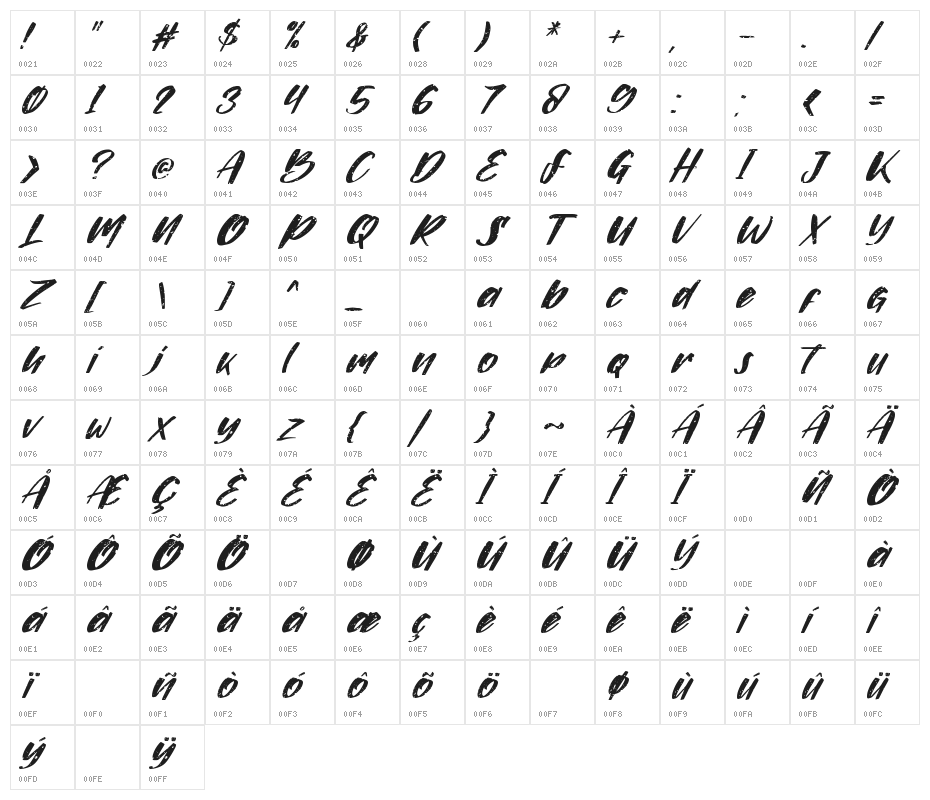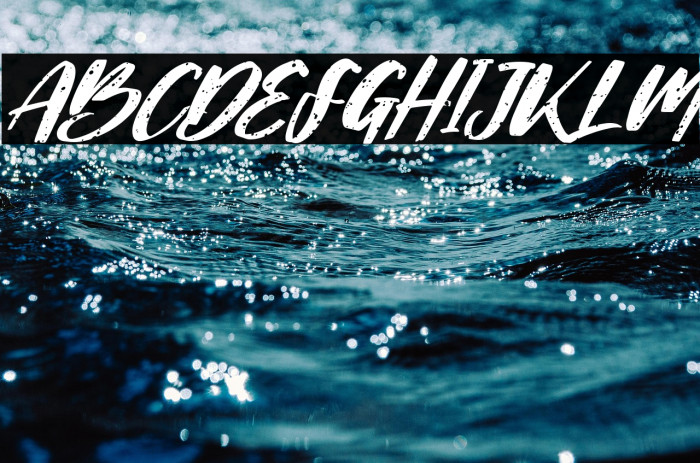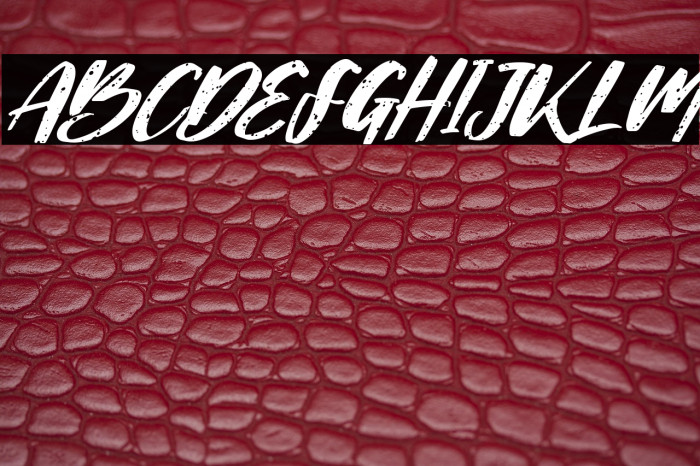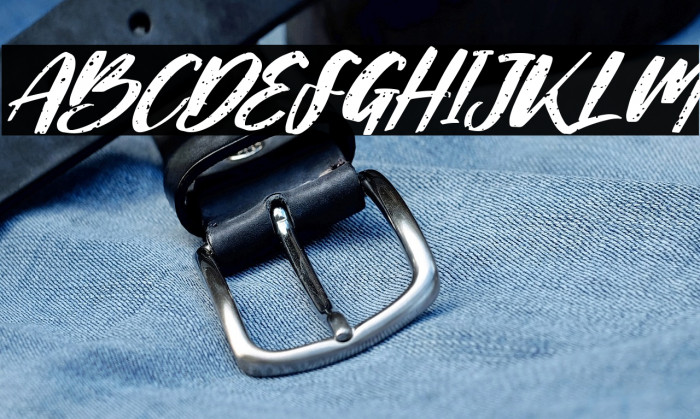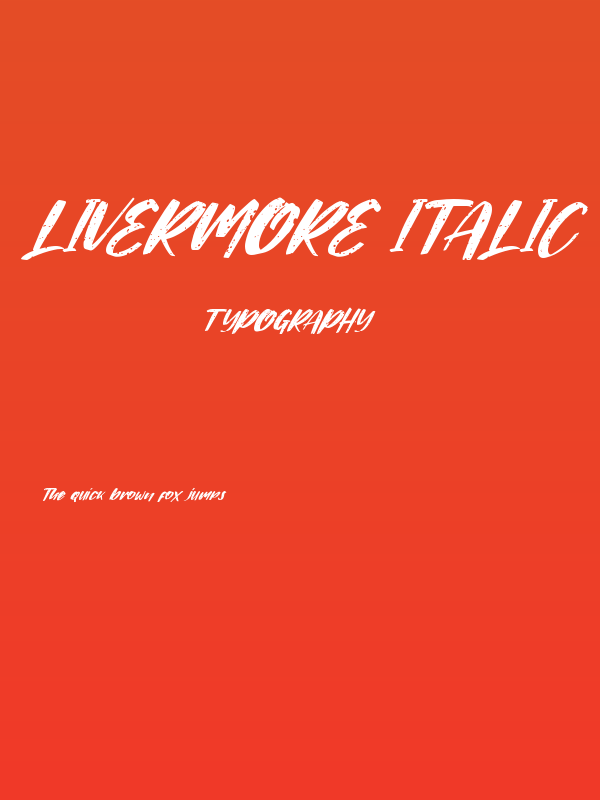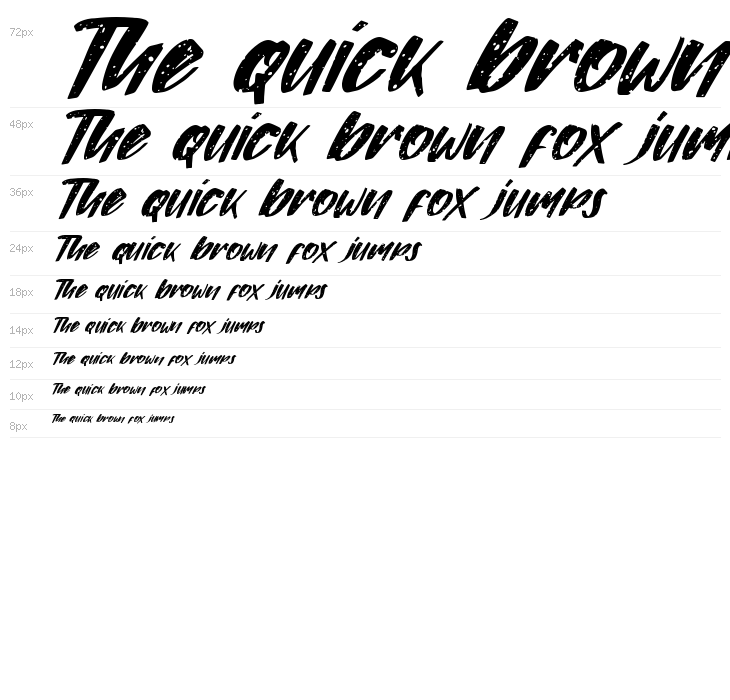
Livermore Italic Font
Livermore Italic Description
This font features a bold, energetic script style with a distressed texture that gives it a rugged, hand-painted appearance. The letters are slanted, adding a dynamic, forward-moving feel. The strokes are thick and varied, with high contrast between the thick and thin parts, enhancing its dramatic flair. The characters are closely spaced, contributing to its compact and impactful look. This font is ideal for projects that require a bold statement, such as branding, posters, or merchandise designs. Its unique texture and style make it stand out, perfect for capturing attention.
| Use Case | Logos, Headlines |
| Proposed Projects | Branding, posters, merchandise designs, and any project needing a bold statement. |